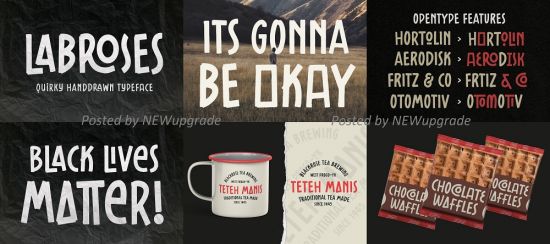
Labroses Typeface is a handdrawn font designed with carefully handcrafted. Also suitable for branding, T-shirt, Wedding Invitation, Vintage Design, Logotype, and any project. With three style make you easier to design everything.
Labroses Regular
Labroses Thin
Labroses Bold